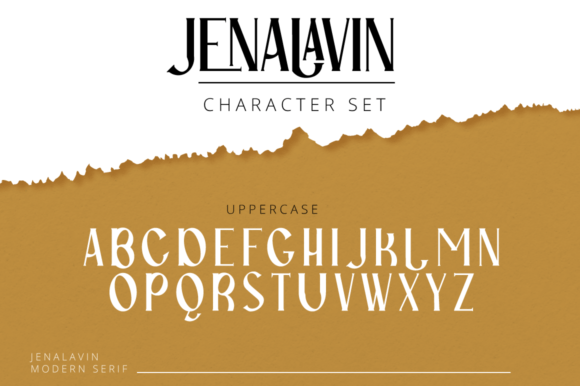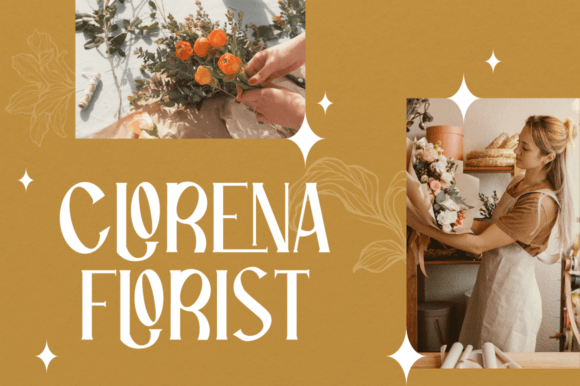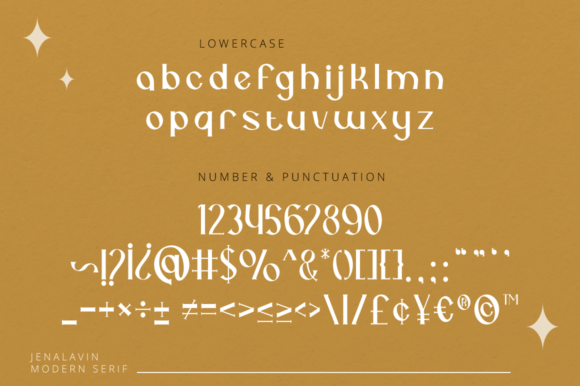
Introduction to Jenalavin Font
Jenalavin is a modern serif font with smooth curves and sharp edges.
Stylish and elegant, this font is perfect for creating fashionable, chic designs .
Jenalavin Font offers exceptional quality and versatility, making it a valuable addition to your design toolkit. Whether you’re creating for personal projects or commercial use, Jenalavin Font delivers professional results.